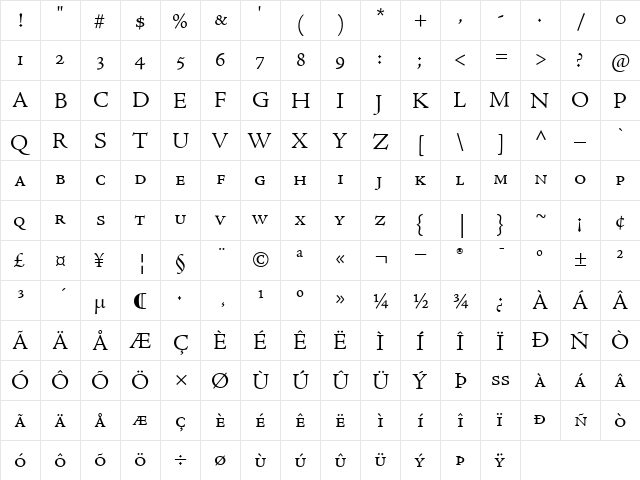
AdobeJensonSmallCaps Roman
Design Context for AdobeJensonSmallCaps Typeface
AdobeJensonSmallCaps is a composed and adaptable typeface that performs quietly and consistently across a wide range of design contexts.